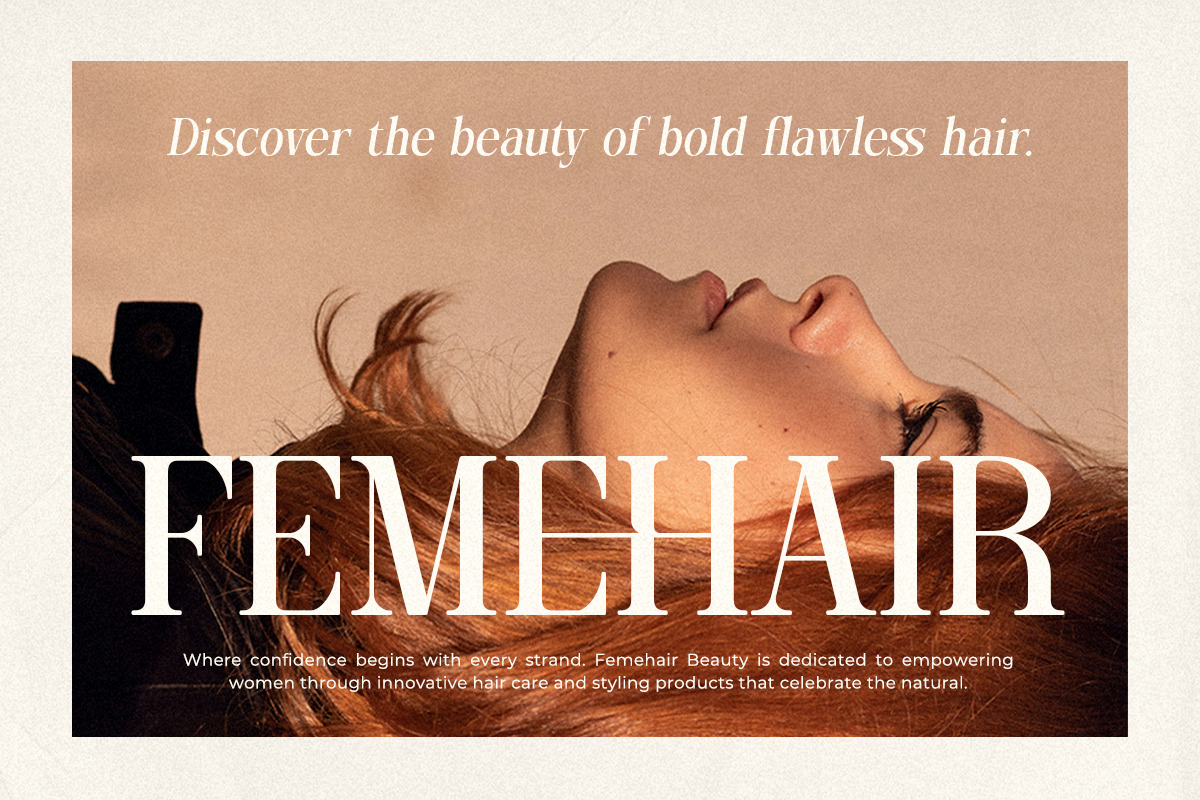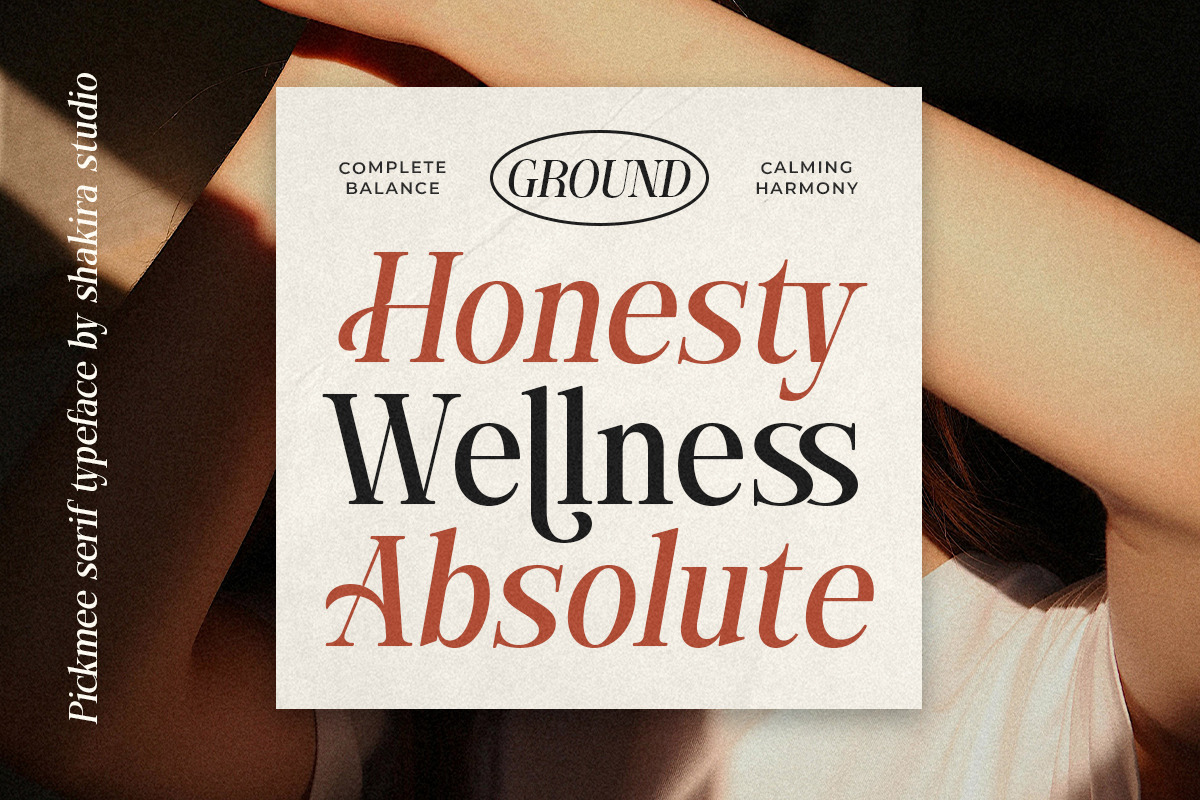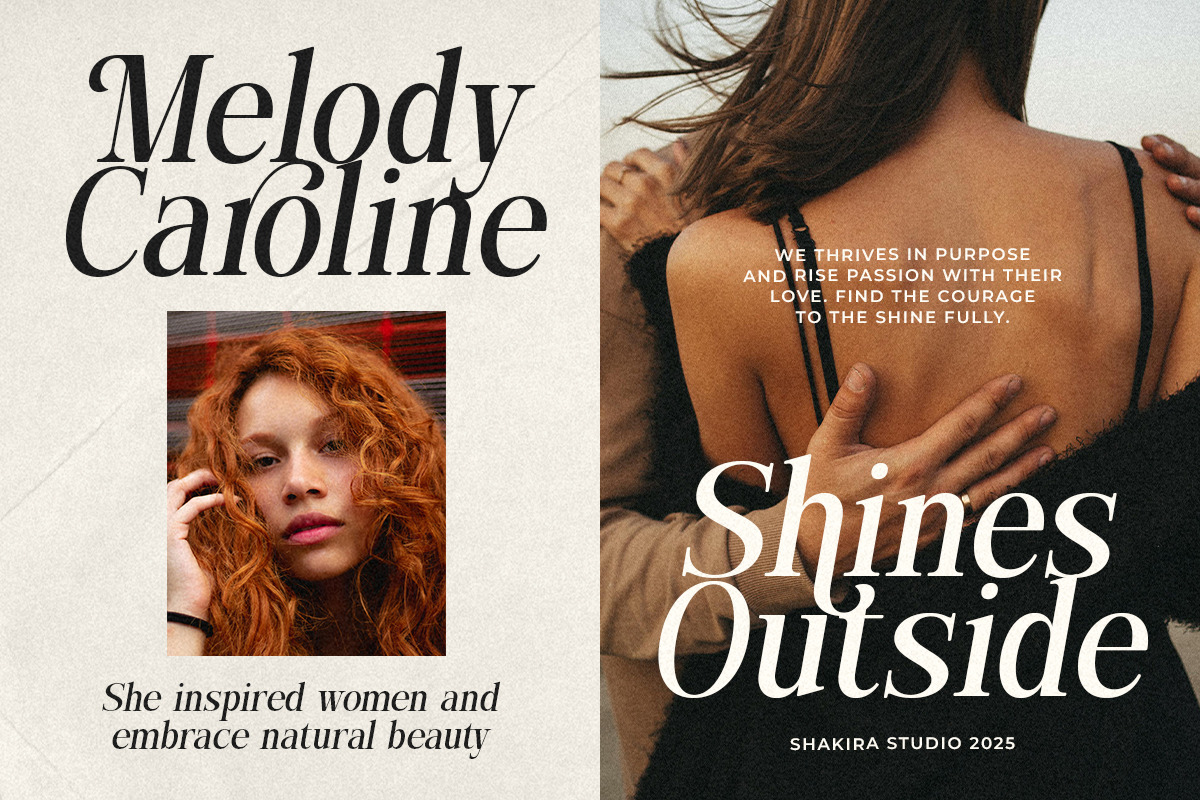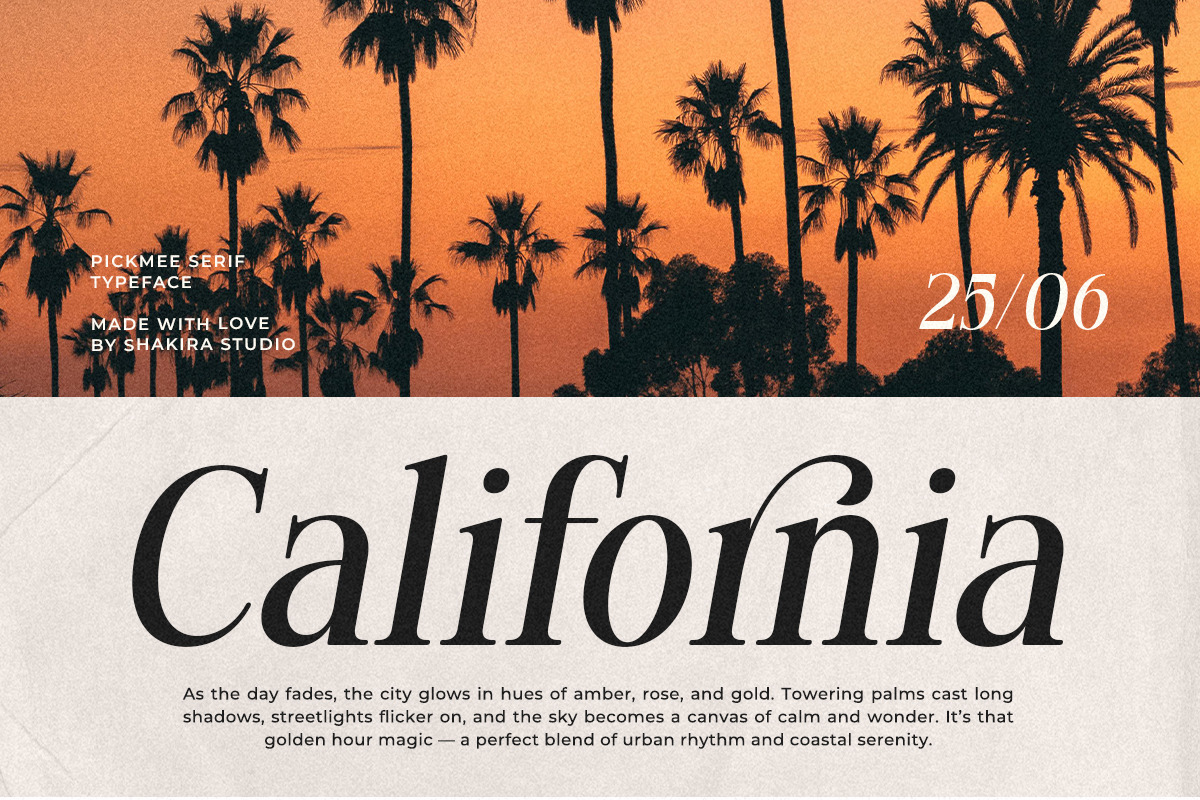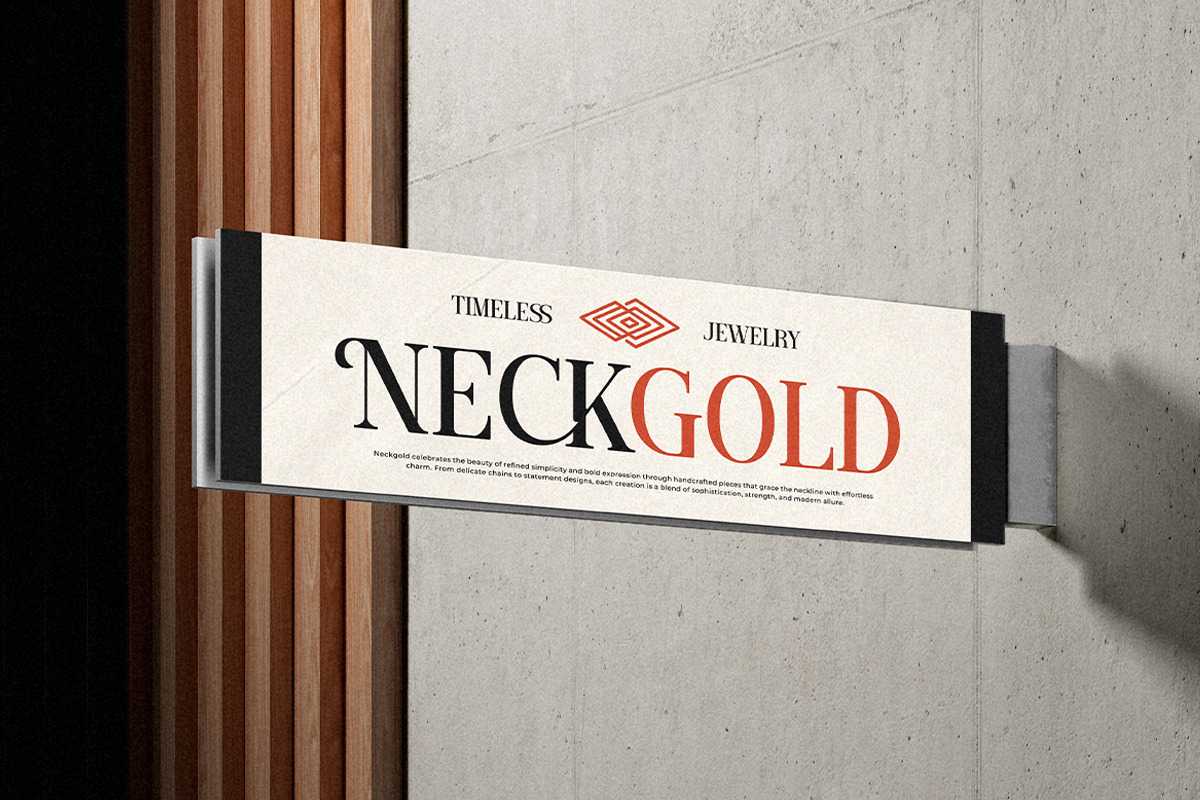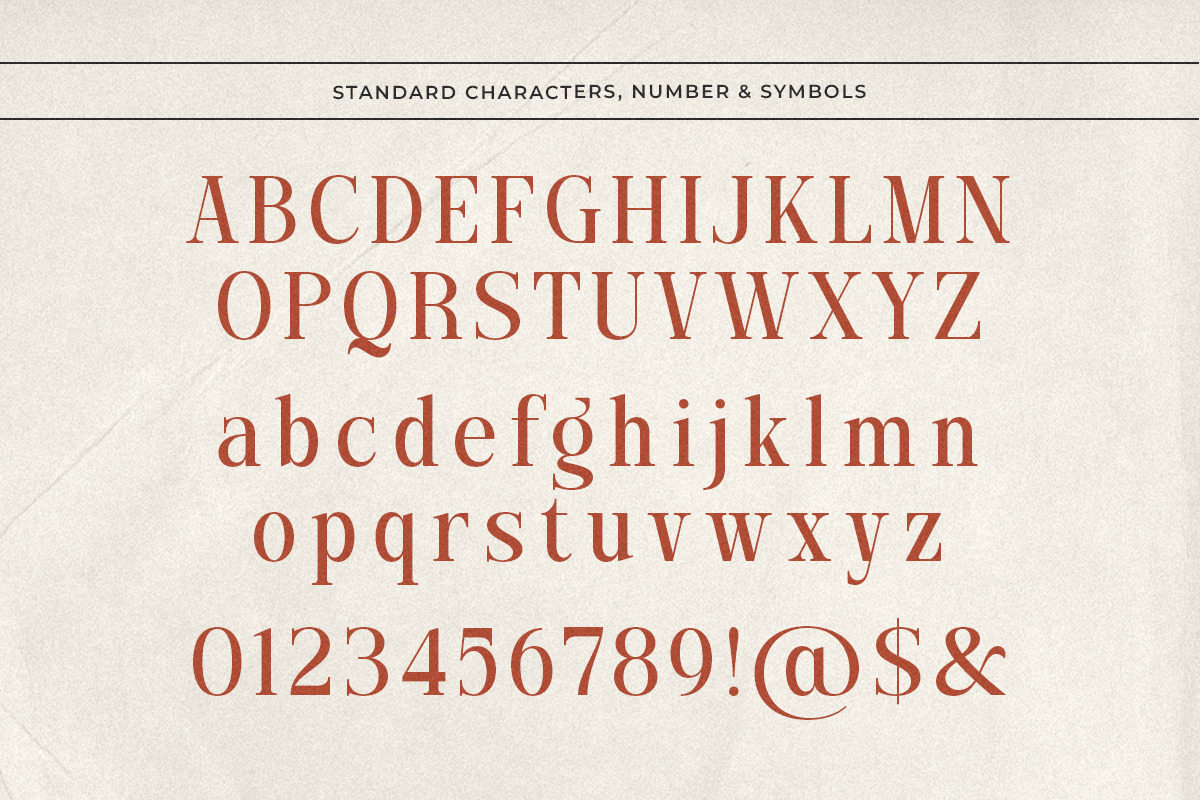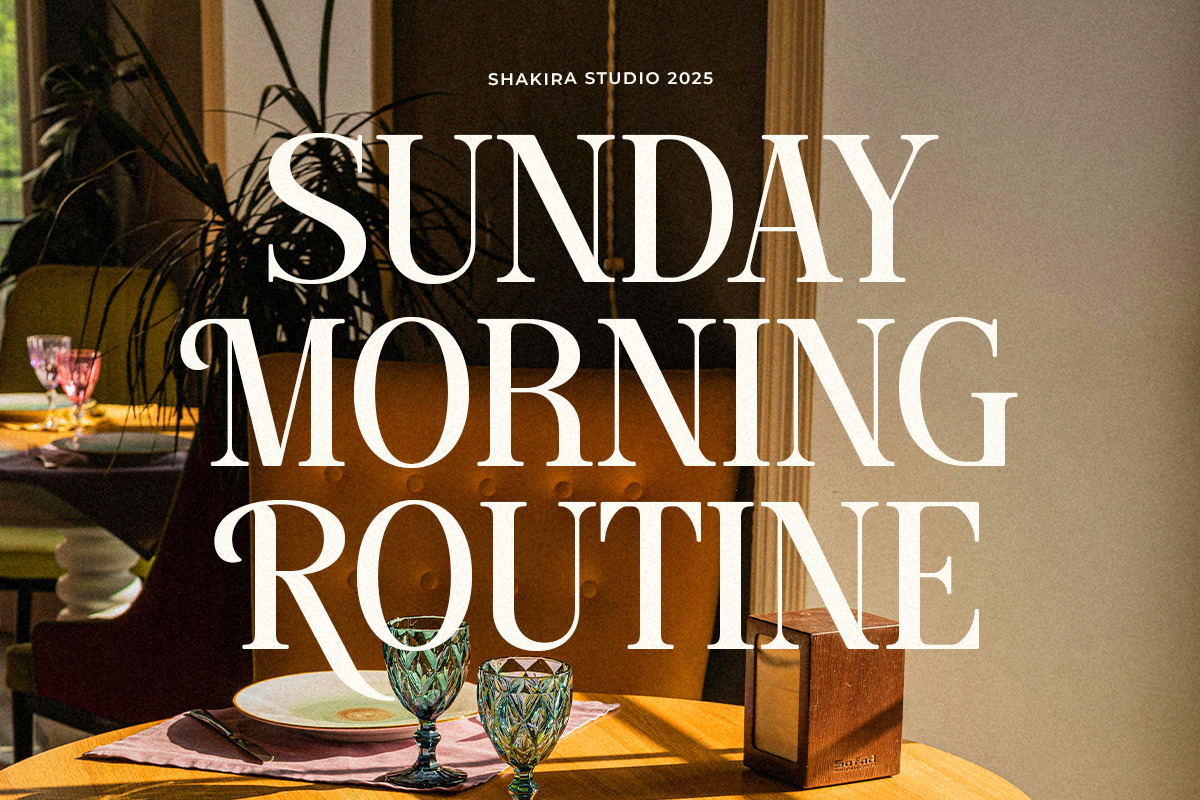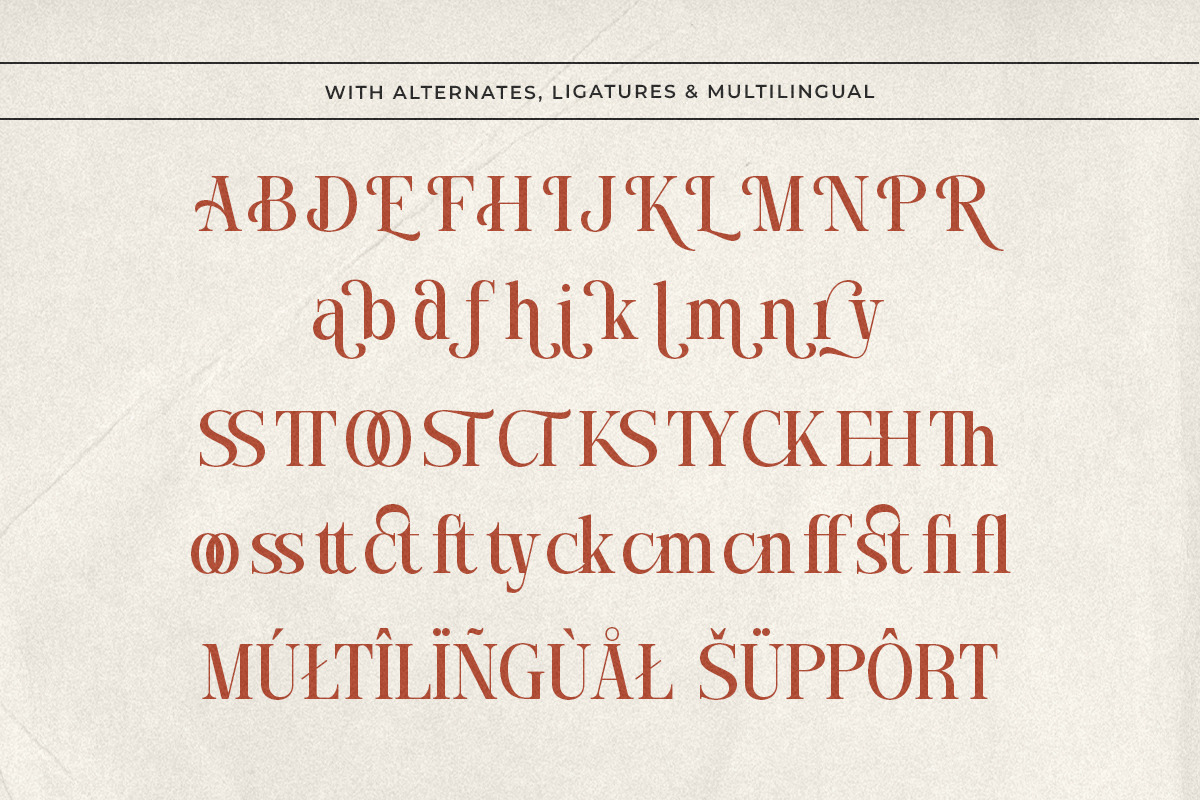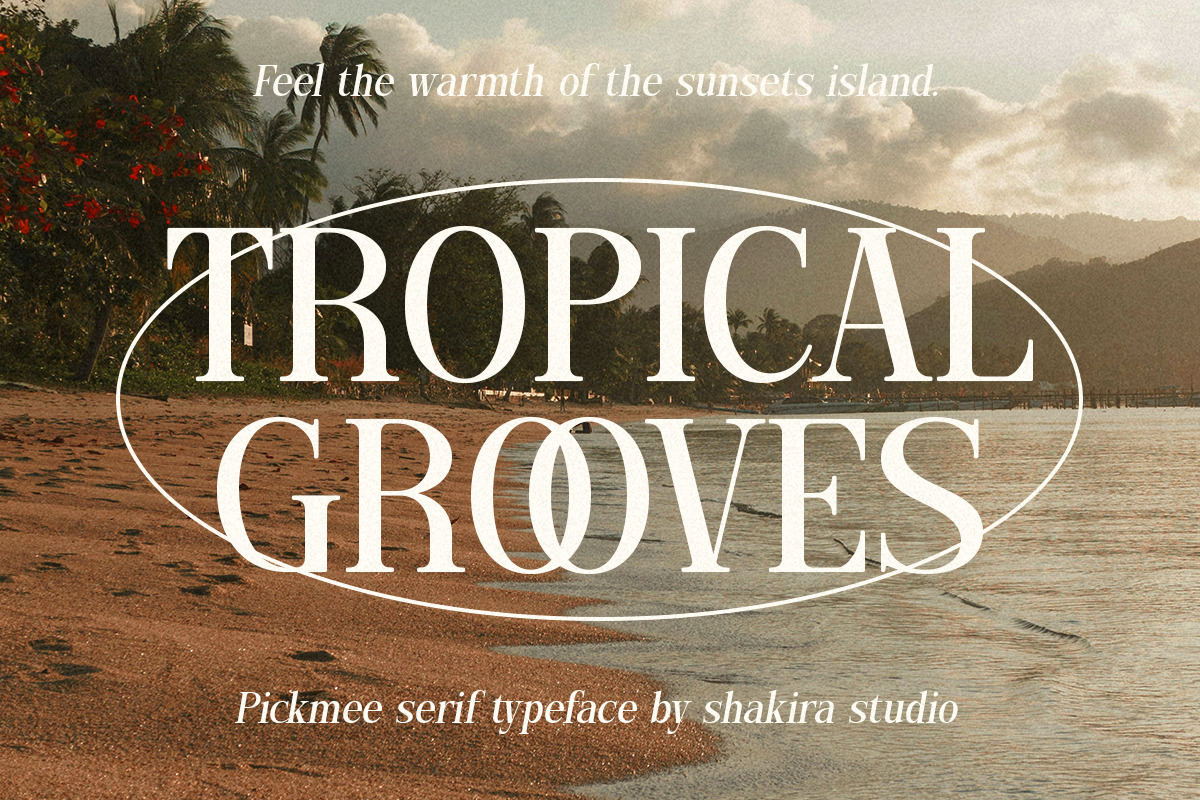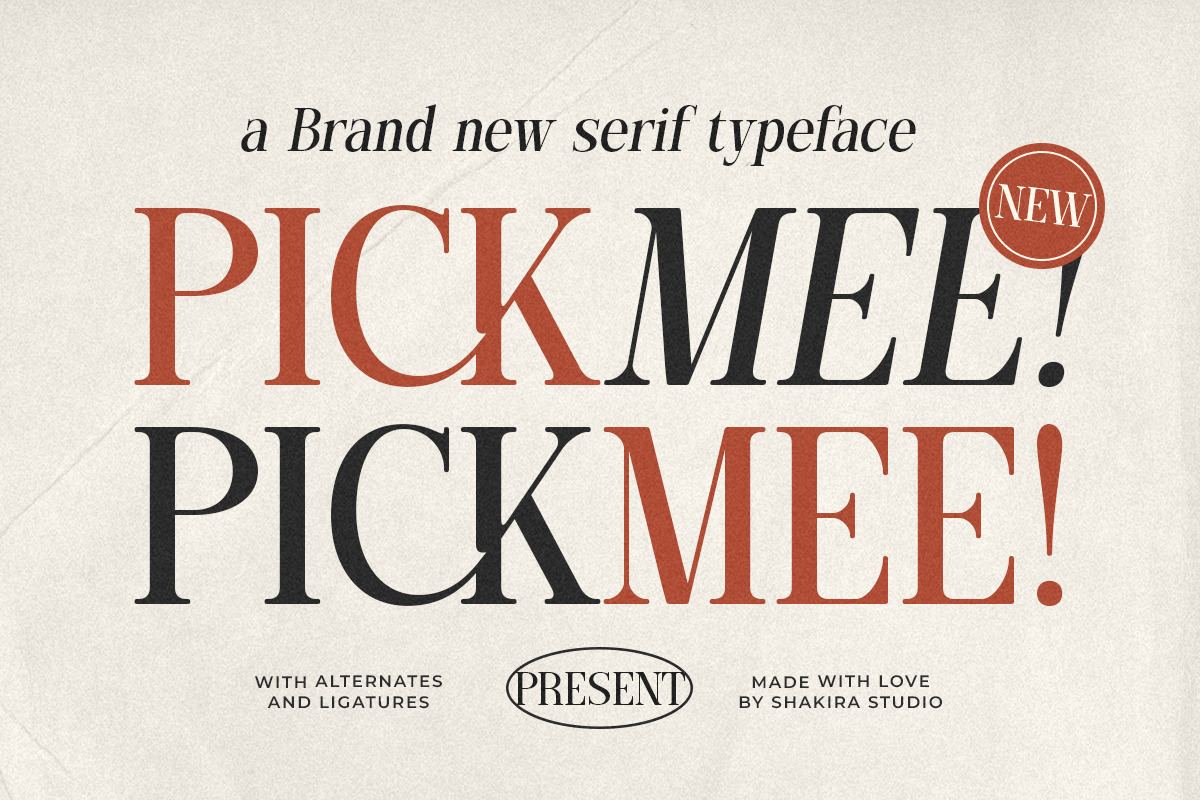
PickMee - Modern Elegant Serif Font
PickMee is a modern elegant serif typeface that combines boldness with refined sophistication.
Designed with stylish alternates and ligatures, this font radiates charm and confidence, making it perfect for logos, branding, magazines, and luxury packaging. With PickMee, every word looks polished, powerful, and unforgettable.
It’s not just typography, it’s a statement of elegance.
- Regular & Italic
- Numerals & punctuation
- Alternates & ligatures
- Luxury branding & logos
- Editorial design & magazines
- Posters & headlines
- Fashion campaigns & packaging
- Social media content
Crafted for projects that demand elegance and authority in one font.